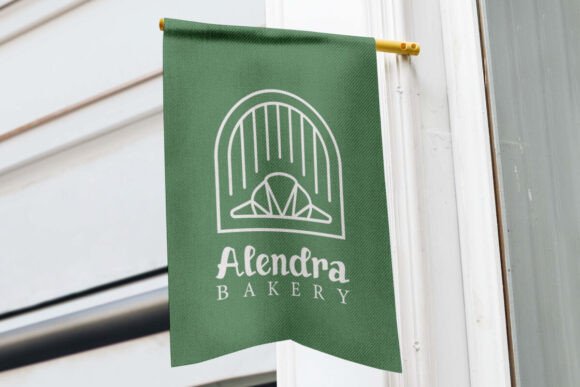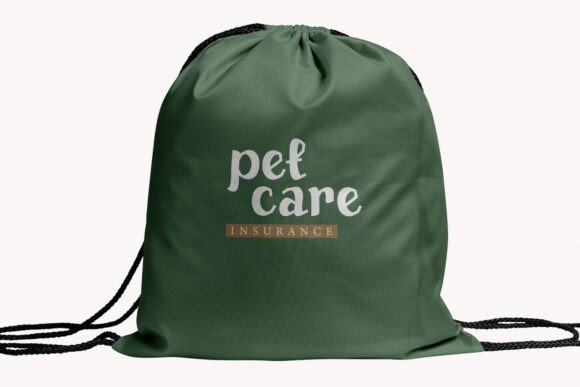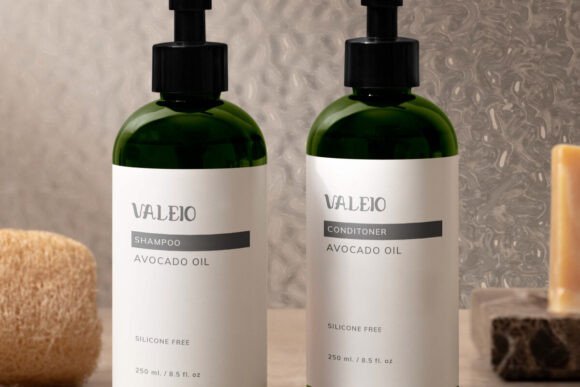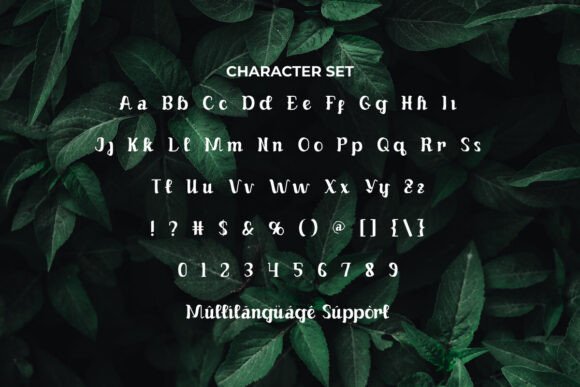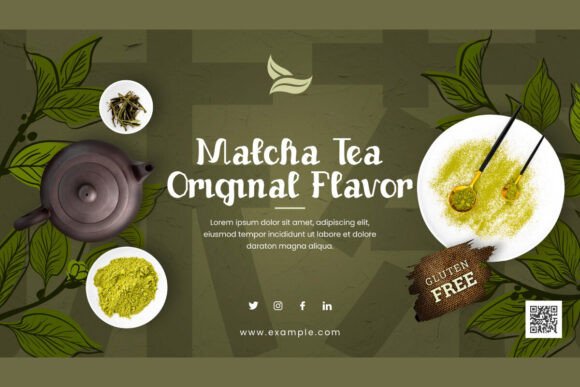
The Greenish Font: A Serene and Attractive Handwritten Font for Your Creative Projects
As a designer, I’ve had my fair share of frustrating moments while working on a project. One of the most relatable struggles is finding the perfect font that captures the essence of your design. I recall working on a project for a sustainable fashion brand, and I was on the hunt for a font that would convey their eco-friendly message. That’s when I stumbled upon the Greenish Font, a serene and attractive handwritten font with a greenery theme.
A Personal Review of Greenish Font
I’m excited to share my honest review of Greenish Font, and here’s what I love about it:
- ✨ Unique and eye-catching design: The font’s greenery theme is refreshing and perfect for projects that require a natural touch.
- ✅ Highly versatile: Greenish Font can be used for a wide range of projects, from apps and billboards to social media posts and stationery.
- ✅ Easy to read: Despite its unique design, the font is surprisingly easy to read, making it perfect for body text and headlines.
- ✨ Trendy and modern: The connected serif display base gives the font a trendy and modern feel that’s perfect for brands looking to make a statement.
While Greenish Font is an excellent choice, it’s not without its quirks:
- 🤔 Limited use of uppercase letters: Some users have reported that the uppercase letters are not as stylized as the lowercase letters.
- ⚠️ Requires careful kerning: As with any script font, kerning can be a challenge, especially when using Greenish Font for body text.
The Story Behind Greenish Font
Greenish Font was designed with the intention of inspiring human awareness and concern for nature through handwriting. The designer aimed to create a font that would not only be beautiful but also convey a message of sustainability and eco-friendliness. The result is a unique and attractive font that’s perfect for projects that require a natural touch.
Q: What is Greenish Font best used for?
A: Greenish Font is a versatile font that can be used for a wide range of projects, including apps, billboards, blogs, branding, brochures, and more.
Q: Is Greenish Font suitable for body text?
A: While Greenish Font is primarily designed for headlines and titles, it can be used for body text in certain contexts. However, it’s recommended to use a clear and readable font for body text and save Greenish Font for headings and titles.